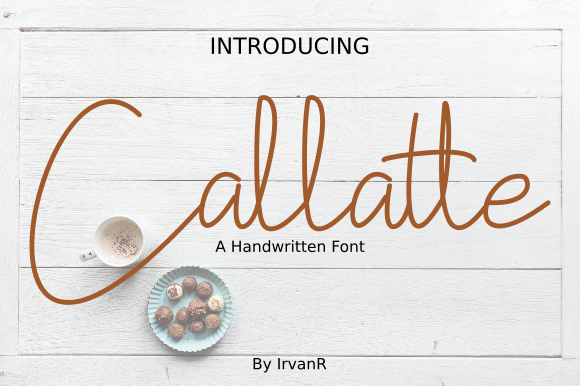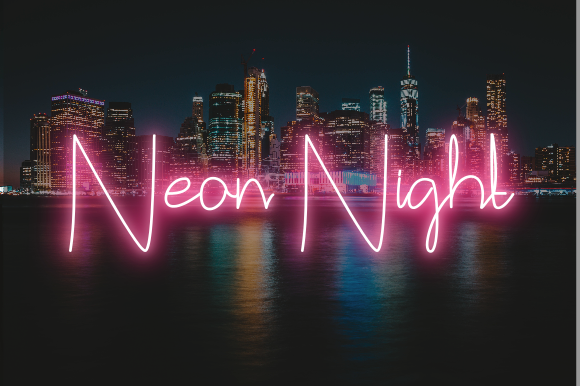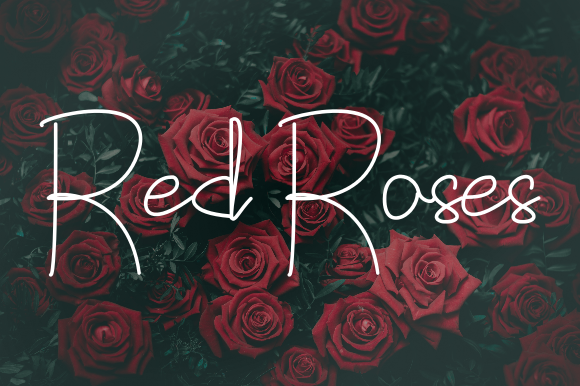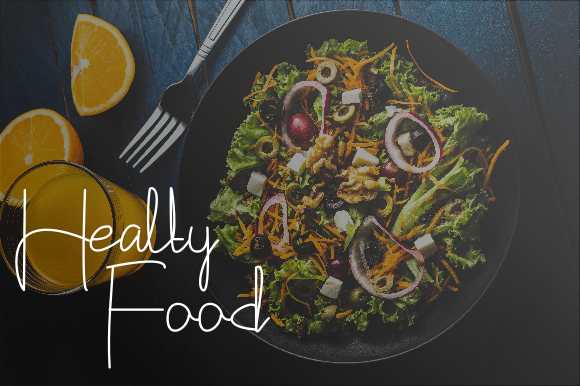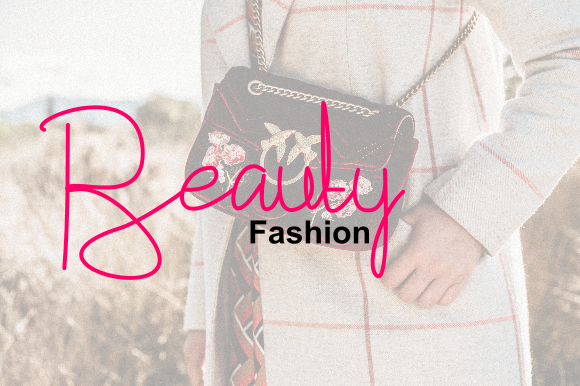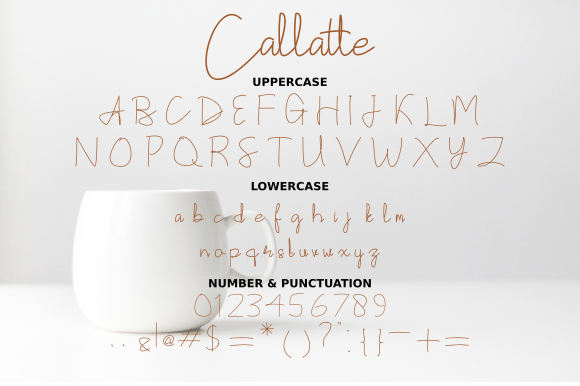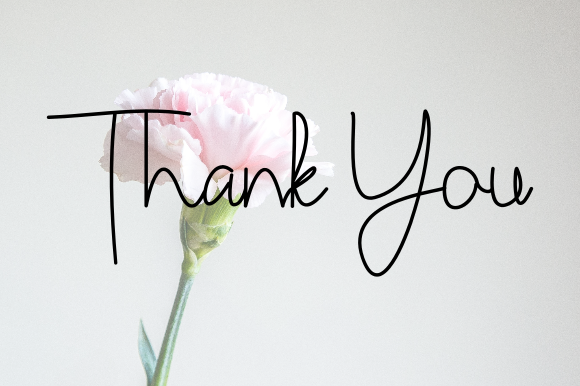
HomeScript FontsCallatte Font Script Fonts Callatte Font FacebookXPinterestWhatsApp Callatte Font Poster 2 Callatte Font Poster 3 Callatte Font Poster 4 Callatte Font Poster 5 Callatte Font Poster 6 Callatte Font Poster 7 About Callatte Font The Callatte is a handwritten script font. Itβs great for branding, posters, quotes, and much more! DOWNLOAD ON CREATIVE FABRICAThis font is sold and delivered by Creative Fabrica. Font Canyon may earn a commission if you buy through this link. People also explored Halloween Font Baby Angel Font Birmingham Font Flories Font LaBonita Font Siffa Font Beauty Flome Font Samosir Font La Belle Signature Font 275 0 TagsCallatte Font Previous articleSugar Plum FontNext articleParasite Font LEAVE A REPLY Cancel reply Comment: Please enter your comment! Name:* Please enter your name here Email:* You have entered an incorrect email address! Please enter your email address here Website: Save my name, email, and website in this browser for the next time I comment. Personal Use Free Masha Song Personal Use Free Read more about this font Fibon Personal Use Free Read more about this font Eits Personal Use Free Read more about this font Bukhari Script Personal Use Free Read more about this font BLOG The 10 Best Handwriting Fonts to Add Personality to Your Designs 10 of the Best Handwriting Fonts for Adding Personality to Your Designs There will undoubtedly be no other better choice than handwriting fonts to give... Free Fonts Risk: Why Free Fonts Can Be Dangerous for Designers To increase your work productivity, choose the most readable fonts. Best Fonts for T-Shirt Design β Top 2025 Picks